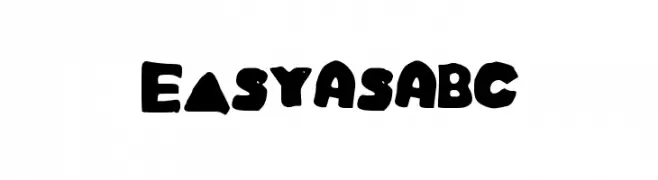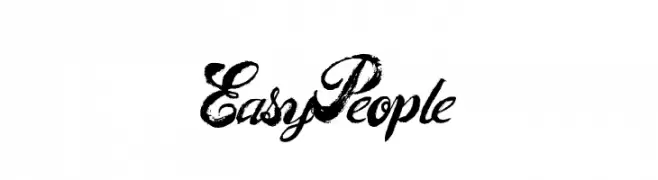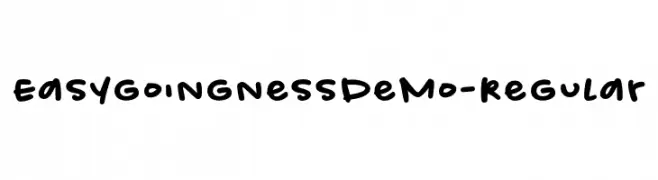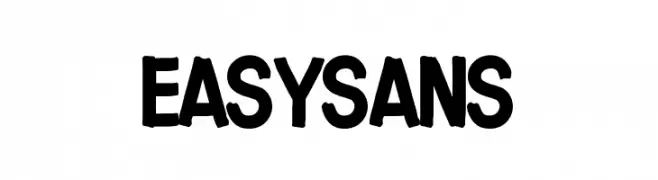
A playful, hand-drawn font with bold, rounded strokes and a casual vibe.
A bold, jagged font with a horror-themed, unsettling aesthetic.
An ornate, gothic-style font with elaborate serifs and decorative elements.
A playful, bold handwritten font with an informal and friendly style.
A bold, expressive script font with calligraphic flair and flowing strokes.
A whimsical, curly font with playful spiral embellishments.
A bold, playful font with rounded edges and a hand-drawn feel.